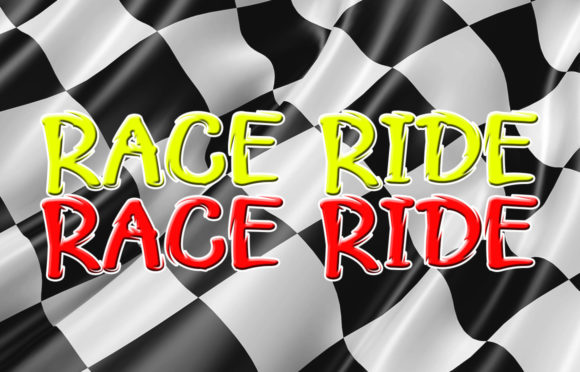
Race Ride Font
Welcome to the world of Race Ride Font – The Best Font For Signature!
Unleash your creativity and elevate your designs with our remarkable display font. Race Ride is a carefully crafted masterpiece that combines the allure of brushed strokes with the boldness of a signature style. Its unique character will add a touch of elegance and sophistication to any project, whether formal or informal.
At Race Ride, we believe that fonts have the power to transform your creations into captivating works of art. Our display font is meticulously designed to evoke emotions and leave a lasting impression on your audience. With Race Ride by your side, you'll discover a world of endless possibilities, where your designs will shine brighter than ever before.
Step into the spotlight and showcase your projects with Race Ride. Its versatility knows no bounds, making it the perfect choice for logos, branding, posters, invitations, greeting cards, and even social media posts. Let your imagination run wild as you explore the countless ways to incorporate Race Ride into your designs.
But Race Ride is more than just a font; it's an experience. Its sleek lines and captivating curves will captivate your audience, drawing them into your designs and leaving them mesmerized. Whether you're a seasoned designer or just starting out, Race Ride is your perfect companion. Its user-friendly nature makes it accessible to everyone, allowing you to create stunning designs with ease.
So why settle for ordinary when you can have extraordinary? Embrace the beauty of Race Ride Font and watch your projects come to life in breathtaking new ways. Join the creative revolution and let Race Ride take your designs to dizzying heights.